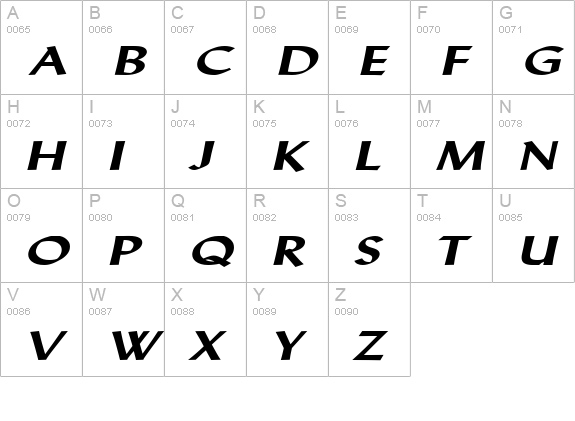
Lynda Extended Bold Italic is a strong, high-contrast, extended-width, italic variant in the Lynda typeface family \xE2\x80\x94 well suited to headlines, attention-grabbing titles, and strong calls-to-action.
Introducing Lynda Extended Bold Italic, a striking and versatile typeface that exudes elegance and sophistication. This font is perfect for adding a touch of modern flair to your design projects, whether it be for branding, advertising, editorial, or any other creative endeavor. With its bold and italicized style, Lynda Extended commands attention and makes a statement while maintaining a sense of refinement and professionalism. The sleek lines and distinct curves of each letter create a visually appealing composition that is both eye-catching and easy to read. What's even better is that Lynda Extended Bold Italic is available for free download at FontsMarket.com. Now you can elevate your designs with this exceptional font without having to worry about breaking the bank. Don't miss out on the opportunity to enhance your projects with the distinctive charm of Lynda Extended Bold Italic – download it today and see the difference it can make!